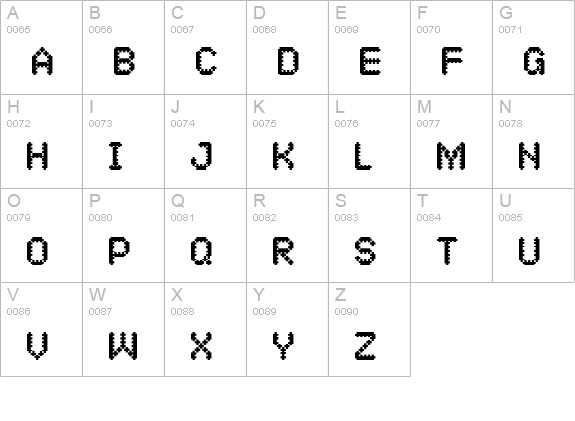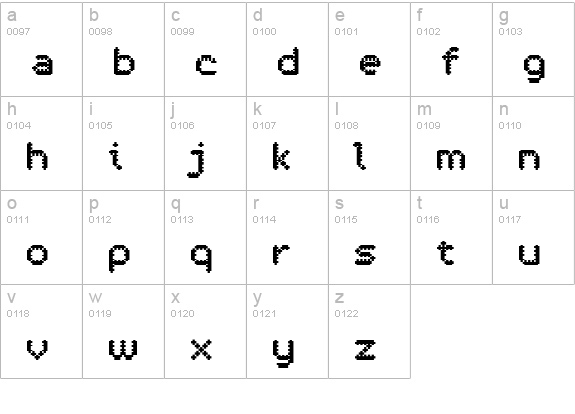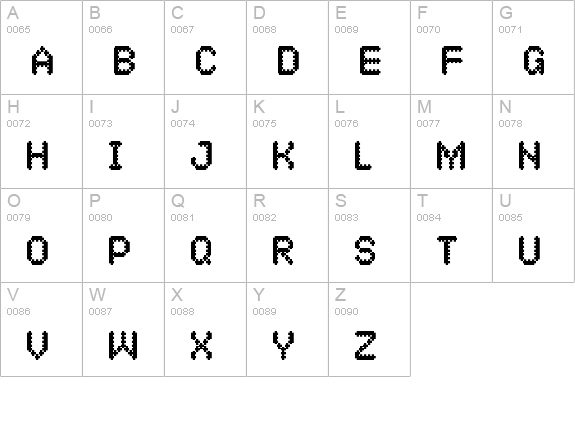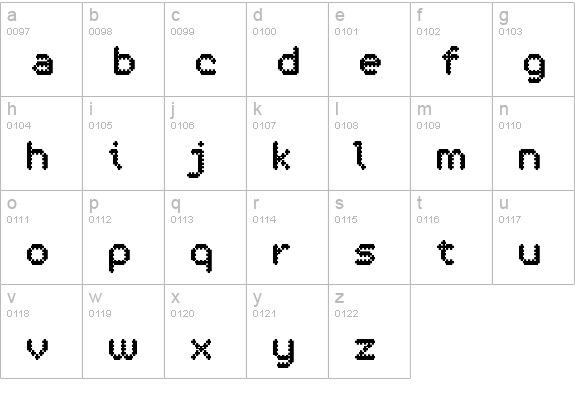
OneCross Bold is a strong, high-contrast variant in the OneCross typeface family \xE2\x80\x94 well suited to headlines, attention-grabbing titles, and strong calls-to-action.